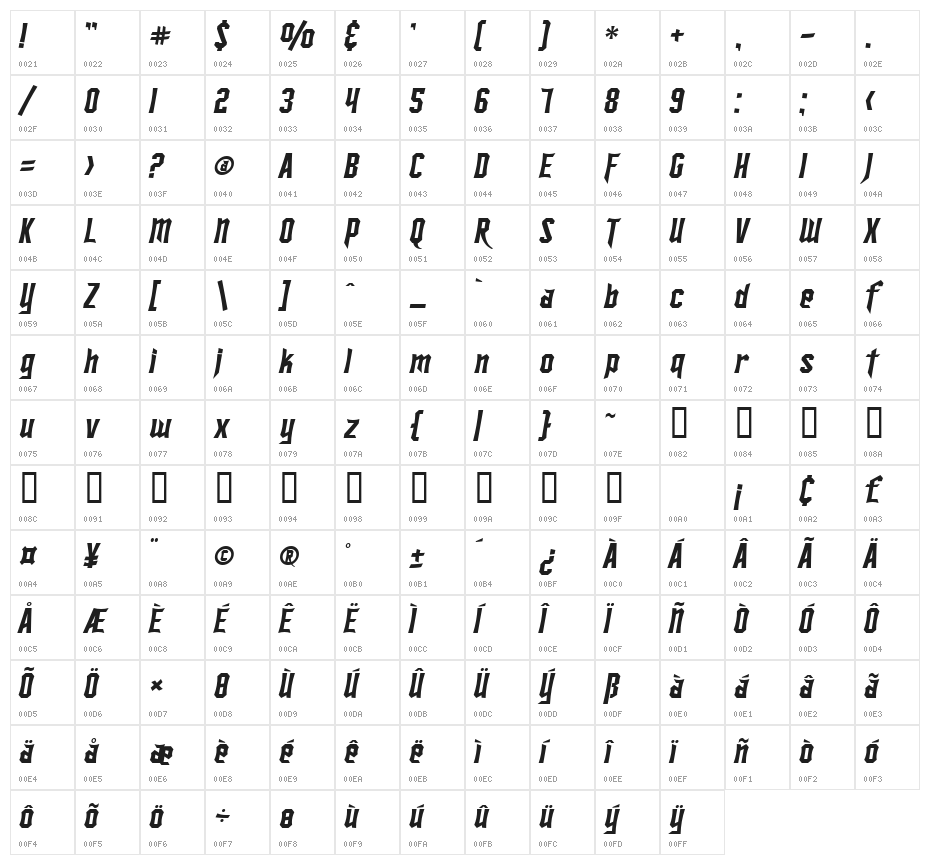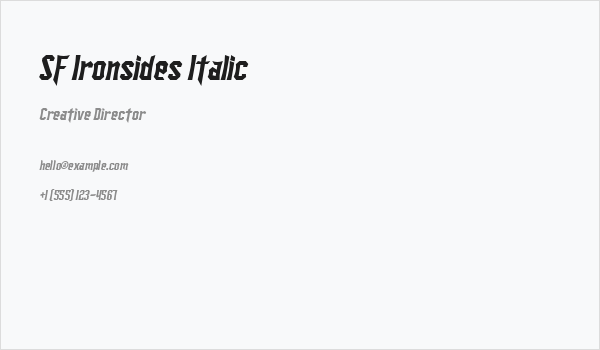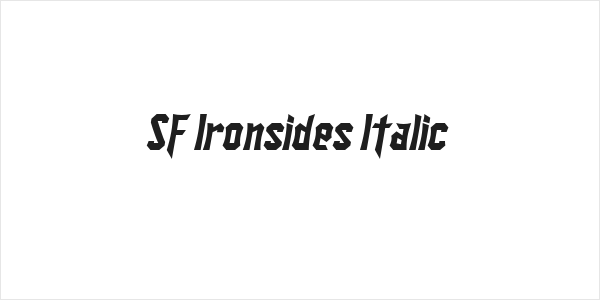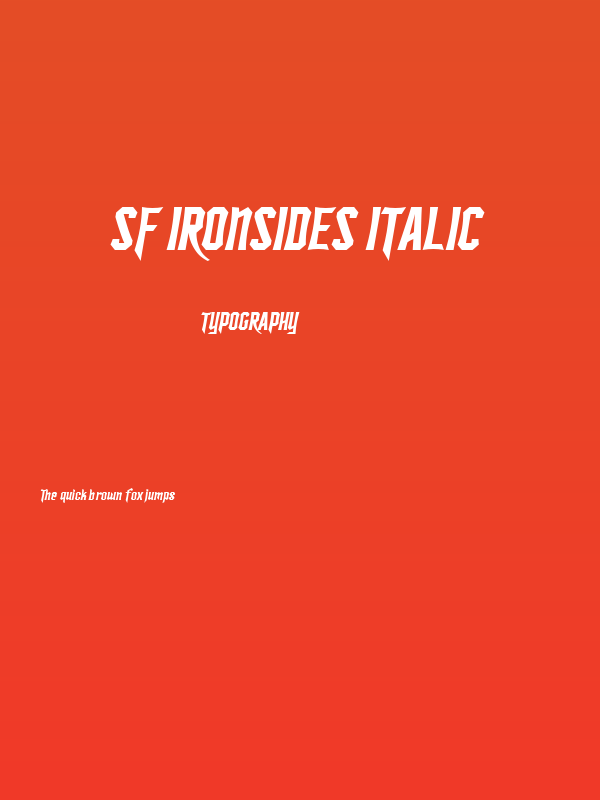
SF Ironsides Italic Font
SF Ironsides Italic Description
This font features a bold, angular design with sharp edges and a distinct italic slant, giving it a dynamic and aggressive appearance. The uppercase letters are particularly striking, with exaggerated angles and a strong presence. The lowercase letters maintain the same angular style, ensuring consistency throughout. Numbers and special characters are equally bold and angular, making them stand out. The overall design is reminiscent of a futuristic or industrial aesthetic, suitable for projects that require a strong visual impact.
| Overall Style | Modern, Futuristic |
| Proposed Projects | Ideal for use in video game titles, movie posters, branding for tech companies, or any project needing a bold, futuristic look. |